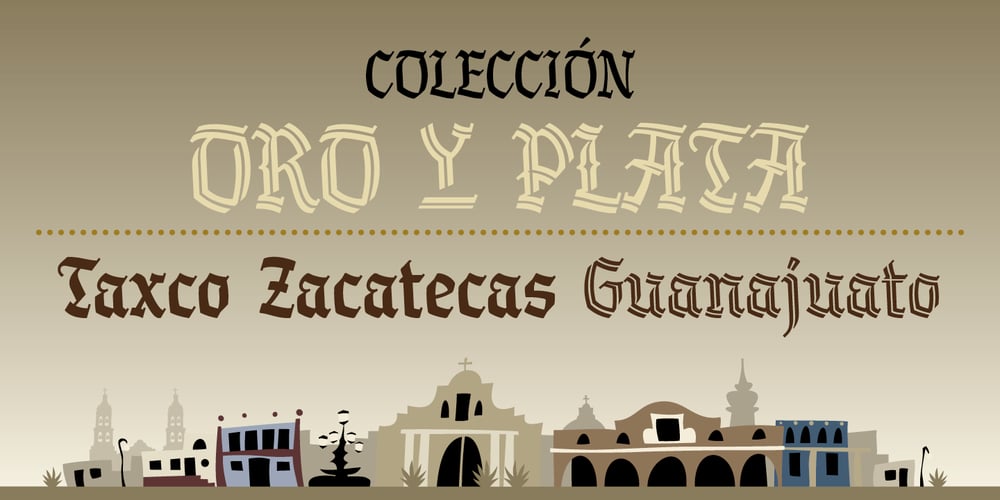
Oro y Plata Font Family was designed by Kristians Šics and published by Lamatas un Slazdi. Oro y Plata contains 9 styles and family package options. The collection Oro y Plata (Gold and Silver) is a Mexican style blackletter, dedicated to the three big silver cities – Taxco, Zacatecas and Guanajuato. Taxco is more angular compared to rounded Zacatecas and elaborate Guanajuato. The fonts contain small capitals, ligatures, initial forms, contextual alternates and other OpenType features. The special feature is a stylistic set of superscript caps with possibility to underline them. It supports all the European languages using Latin alphabet.